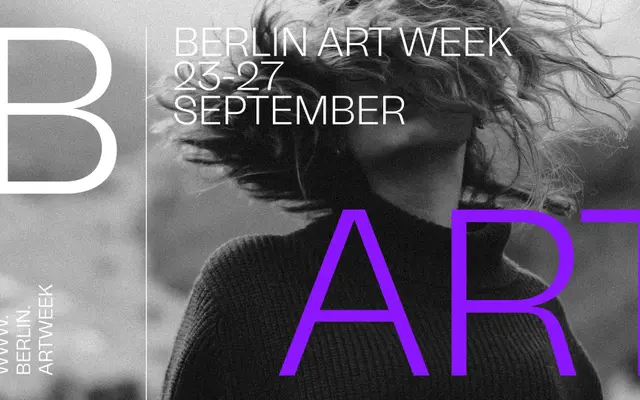
Neue Freigeist
A nine-weight humanist sans from Studio Rene Bieder with matching italics and a generous set of OpenType alternates across each style.
Spanning ExtraLight through Heavy with italics throughout, the family offers broad tonal range for both text and display use. A rich OpenType feature set includes alternate forms for a, g, r, y, Q, R and ß, alongside tabular and proportional figures, fractions and discretionary ligatures. Individual styles are sold separately at €35 each, making it a modular purchase rather than a single bundle.
Neue Freigeist presents humanist sans-serif characteristics with a broad weight range and extensive OpenType alternates suggesting warmth and flexibility. The presence of alternate a, g, r and y forms points to a humanist rather than geometric or grotesque origin.